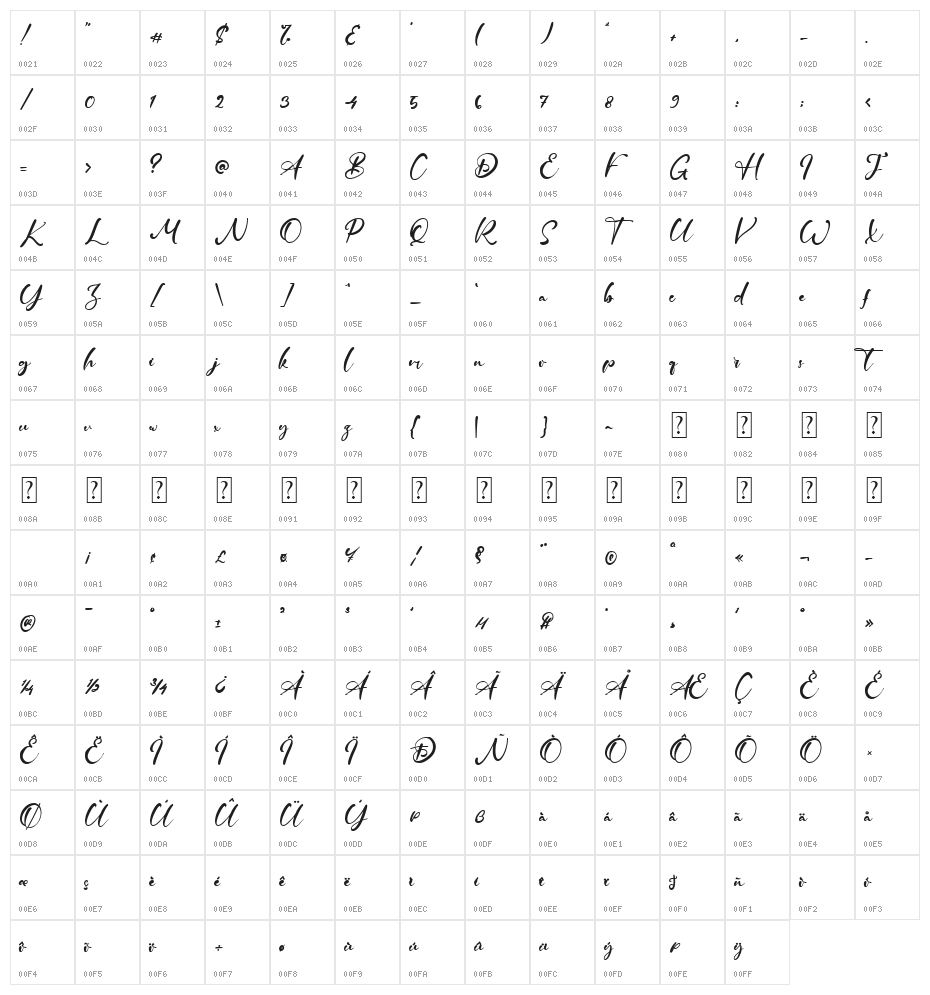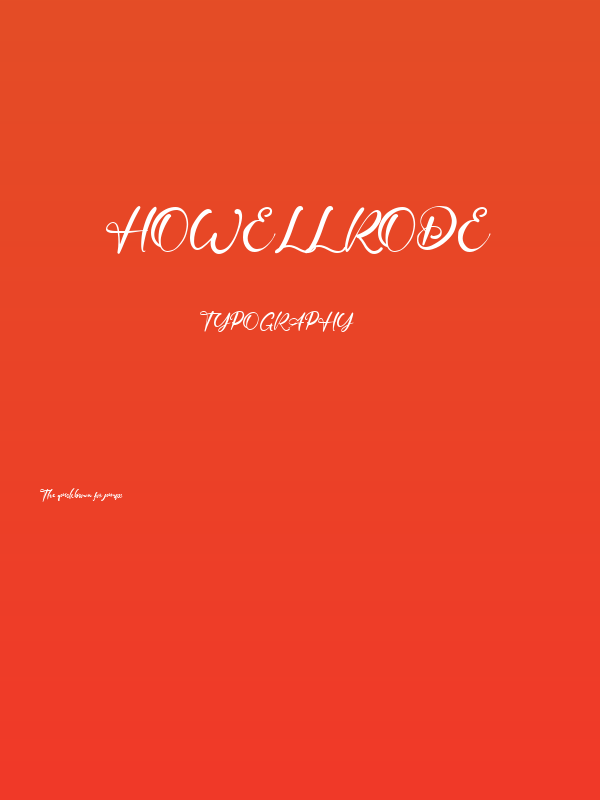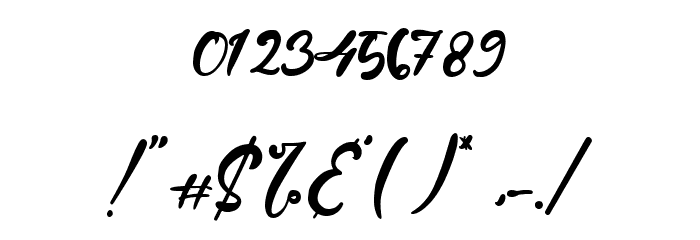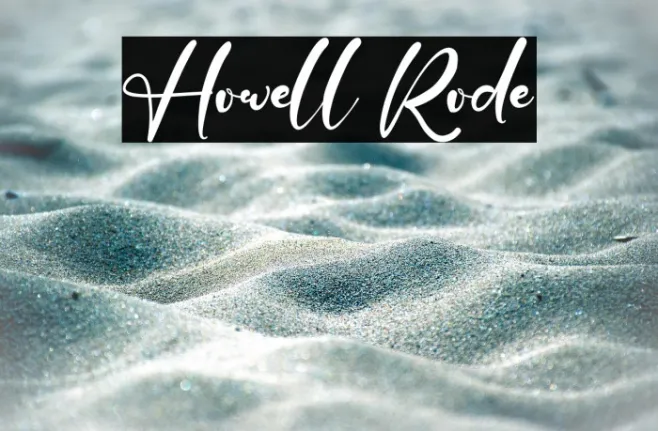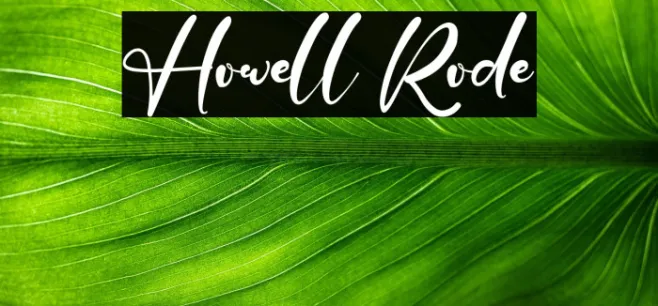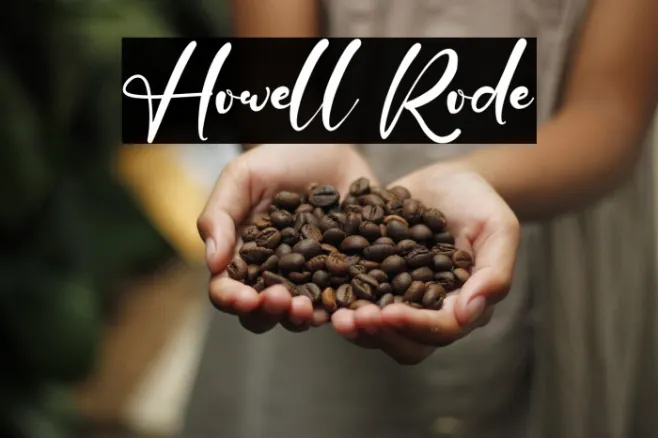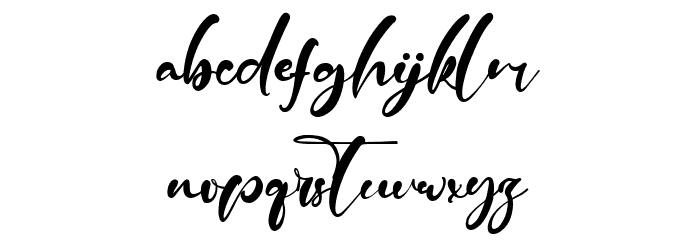
Howell Rode Font
Howell Rode Description
This font features an elegant and flowing script style, characterized by its smooth, cursive letterforms. The uppercase letters are ornate, with sweeping curves and flourishes that add a touch of sophistication. The lowercase letters maintain a consistent flow, with some characters featuring distinctive loops and tails that enhance the overall aesthetic. The numerals are designed to complement the script style, maintaining readability while adhering to the font's graceful appearance. Special characters are thoughtfully integrated, ensuring versatility across various applications. The font's design is perfect for projects that require a touch of elegance and personality.
| Use Case | Logos, Invitations, Decorative Text |
| Proposed Projects | Ideal for wedding invitations, elegant branding, personal stationery, and decorative signage. |